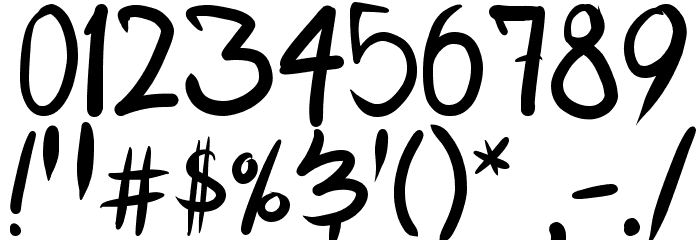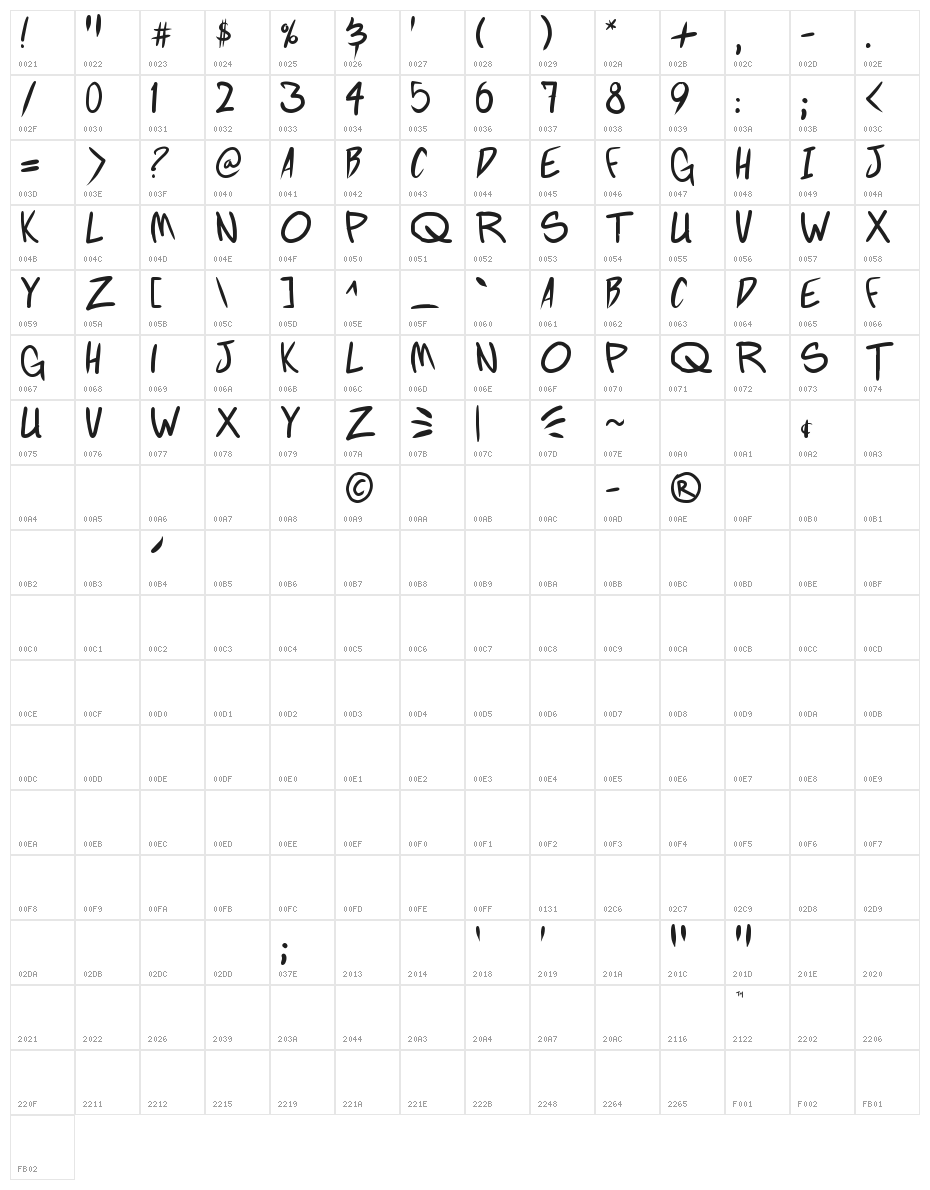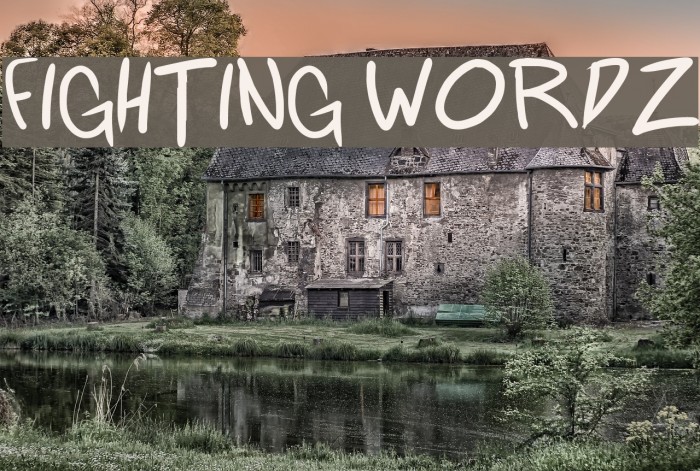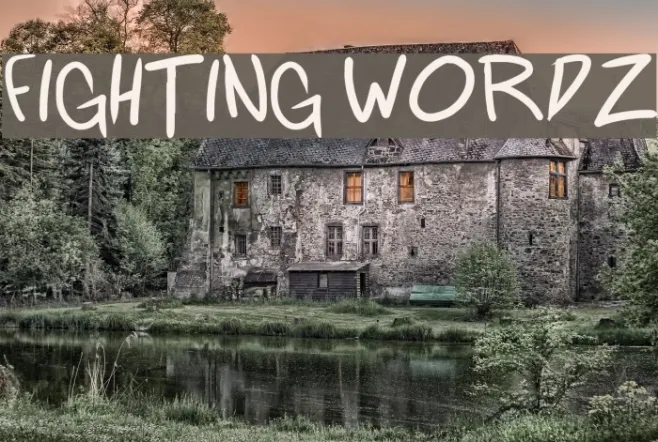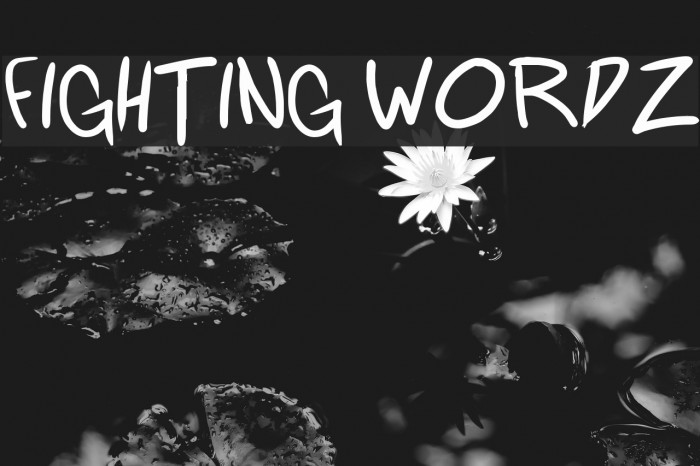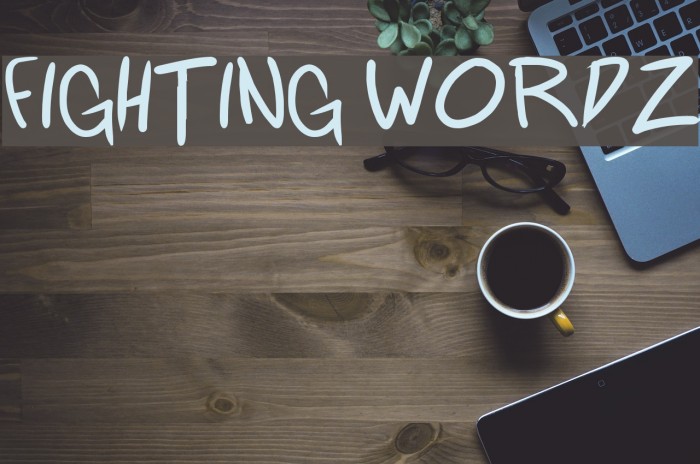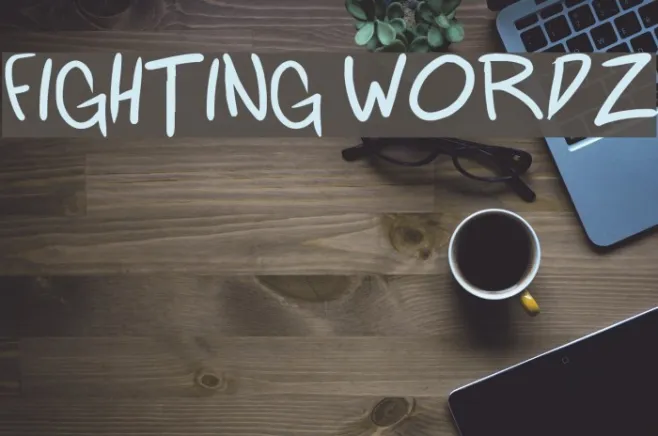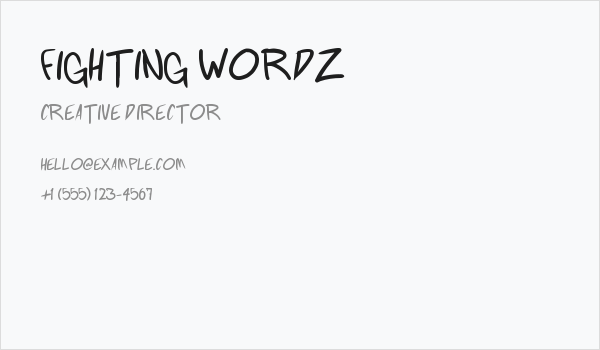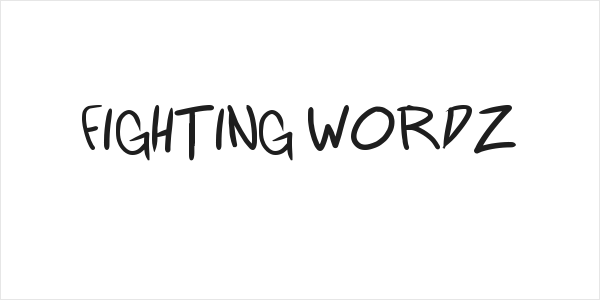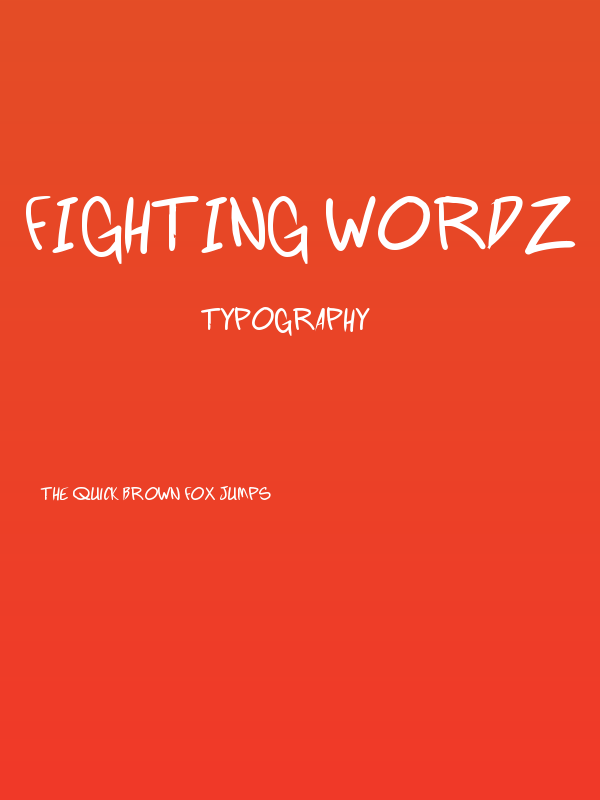
Fighting wordz Font
Fighting wordz Description
This font exudes a dynamic and energetic vibe, characterized by its bold, hand-drawn appearance. The letters are slightly slanted, giving a sense of motion and urgency. The strokes are thick and uneven, adding to the raw, expressive feel. The uppercase and lowercase letters maintain a consistent style, with exaggerated curves and sharp angles. Numbers and special characters follow the same aesthetic, ensuring a cohesive look across all glyphs. This font is perfect for projects that require a bold statement or a touch of rebellious flair.
| Proposed Projects | Ideal for posters, album covers, graffiti art, and edgy branding. |